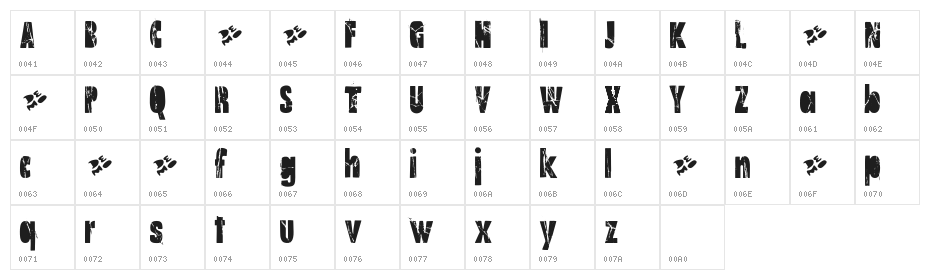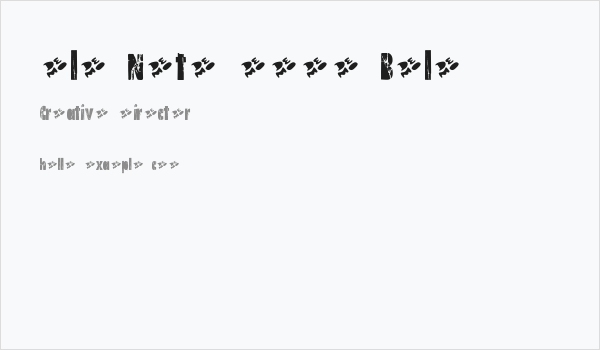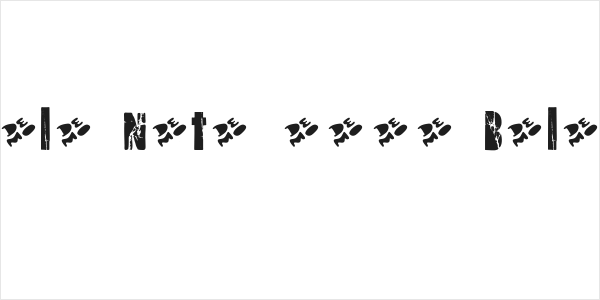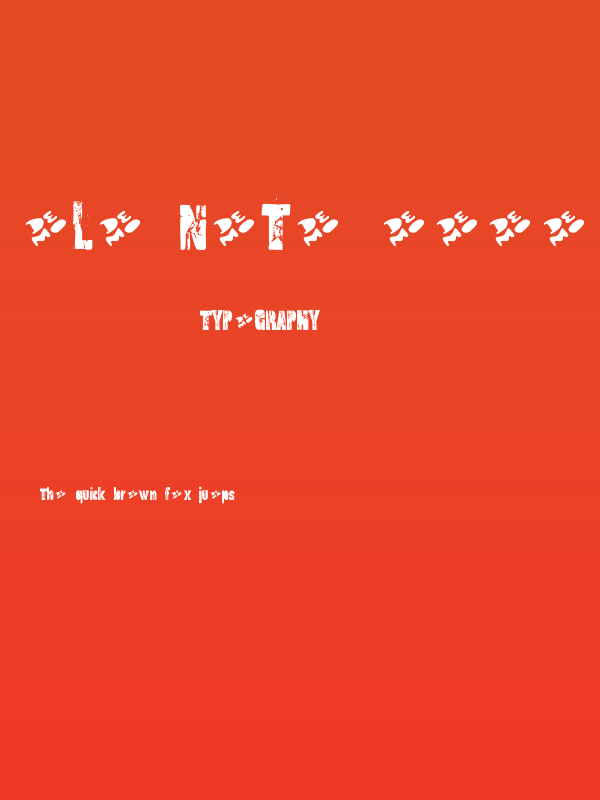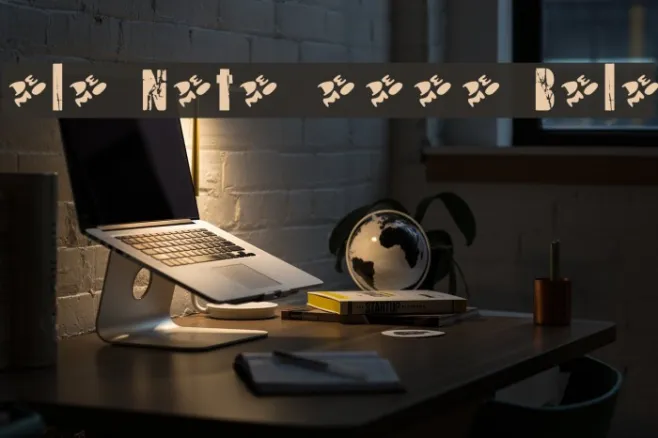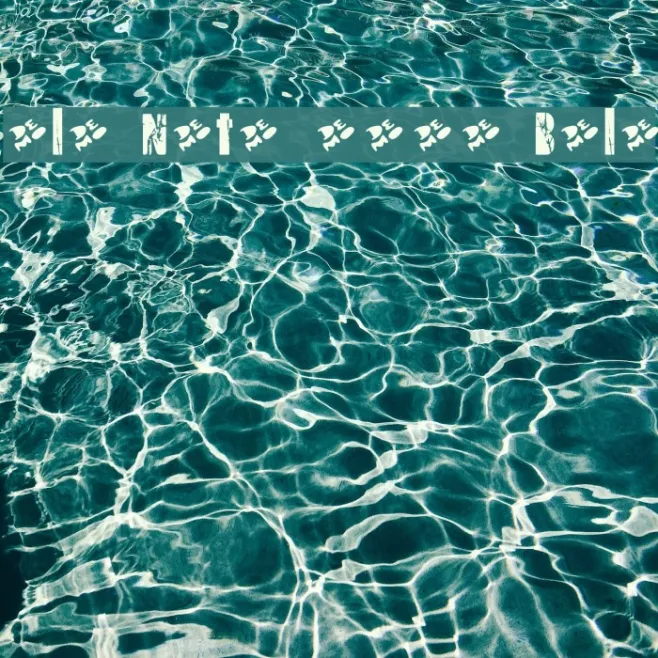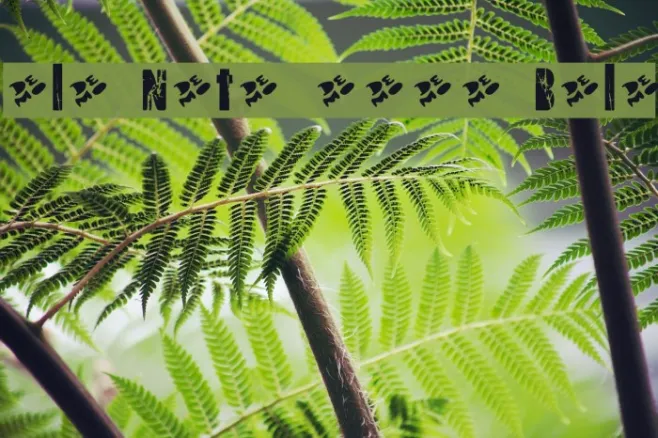
Old Note Demo Bold Font
Old Note Demo Bold Description
This font features a bold and distressed style, characterized by rough, uneven edges and a grunge-like texture that gives it a worn, vintage appearance. The uppercase and lowercase letters maintain a consistent boldness, with each character appearing as if it has been weathered over time. The numbers and special characters follow the same distressed aesthetic, making the font ideal for projects that require a rugged, edgy look. The overall design is eye-catching and impactful, suitable for creating a strong visual statement.
| Overall Style | Vintage, Grunge |
| Proposed Projects | Ideal for posters, album covers, branding for edgy products, or any design needing a rugged, vintage look. |